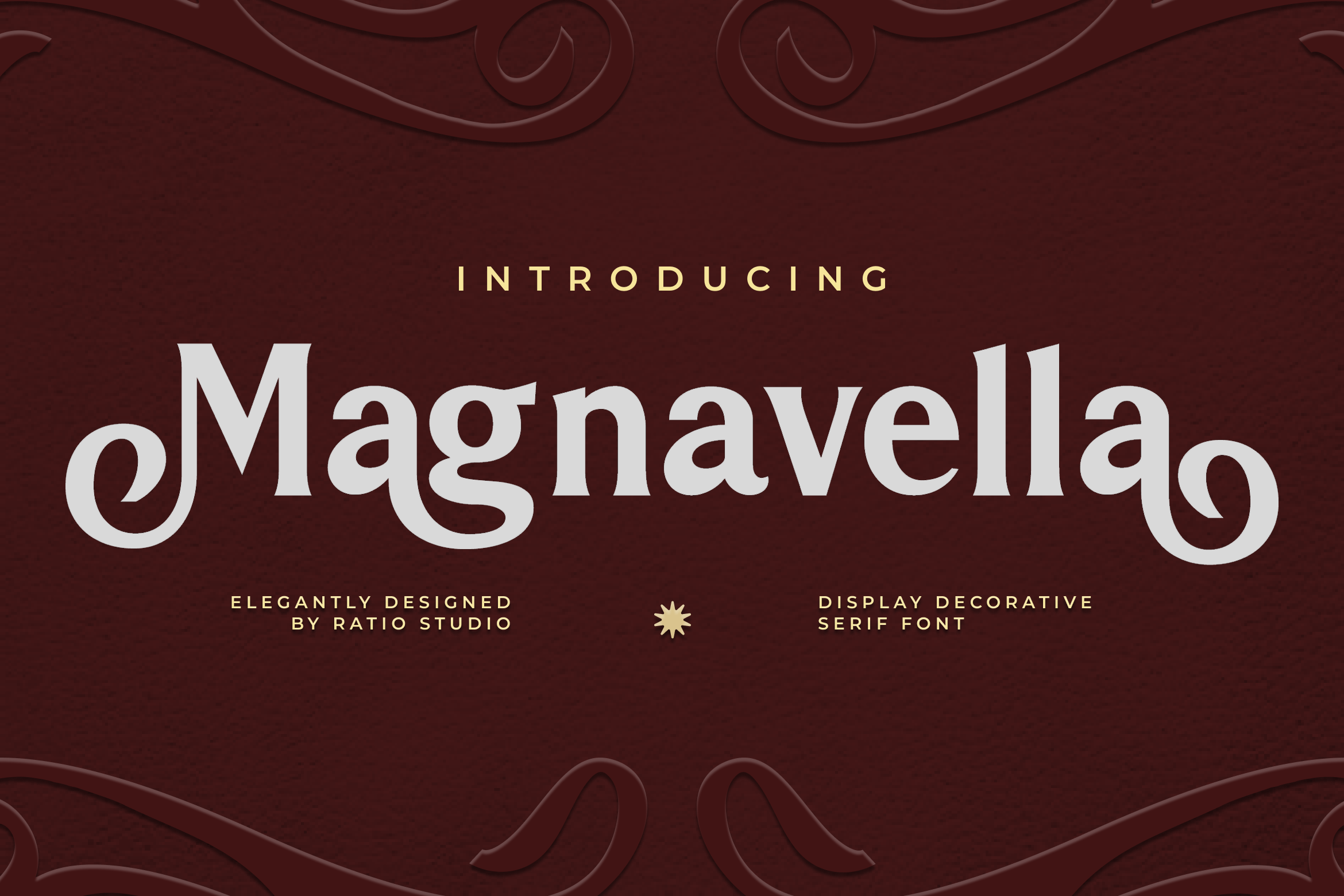
Magnavella Display Serif Font
Magnavella is an elegant decorative serif display font designed with a high level of sophistication and flair. Featuring striking swashes, unique ligatures, and a balanced serif structure, this font is perfect for projects that demand elegance and presence. It includes uppercase and lowercase letters, punctuation, numerals, and a variety of stylistic alternates to bring out your most creative layouts.
Magnavella is ideal for branding projects that require a high-end and memorable identity. It works beautifully in elegant wedding invitations, luxurious product packaging, editorial spreads, and logo designs for fashion and beauty brands. Its decorative flourishes add personality while remaining legible for headers and short text.
- Elegant serif structure with refined decorative swashes and curves
- Balanced contrast in stroke weight for a luxurious yet readable look
- Distinctive alternate characters and ligatures for creative flexibility
- Subtle vintage flair blended with modern display clarity
- Designed for high-impact headlines, logos, and editorial use
- Luxury branding and high-end packaging design requiring a sophisticated touch
- Editorial layouts and magazine headlines with an elegant visual voice
- Wedding invitations, greeting cards, and upscale stationery
- Boutique logos and fashion brand identities with timeless appeal
- Social media graphics and promotional designs with a decorative flair